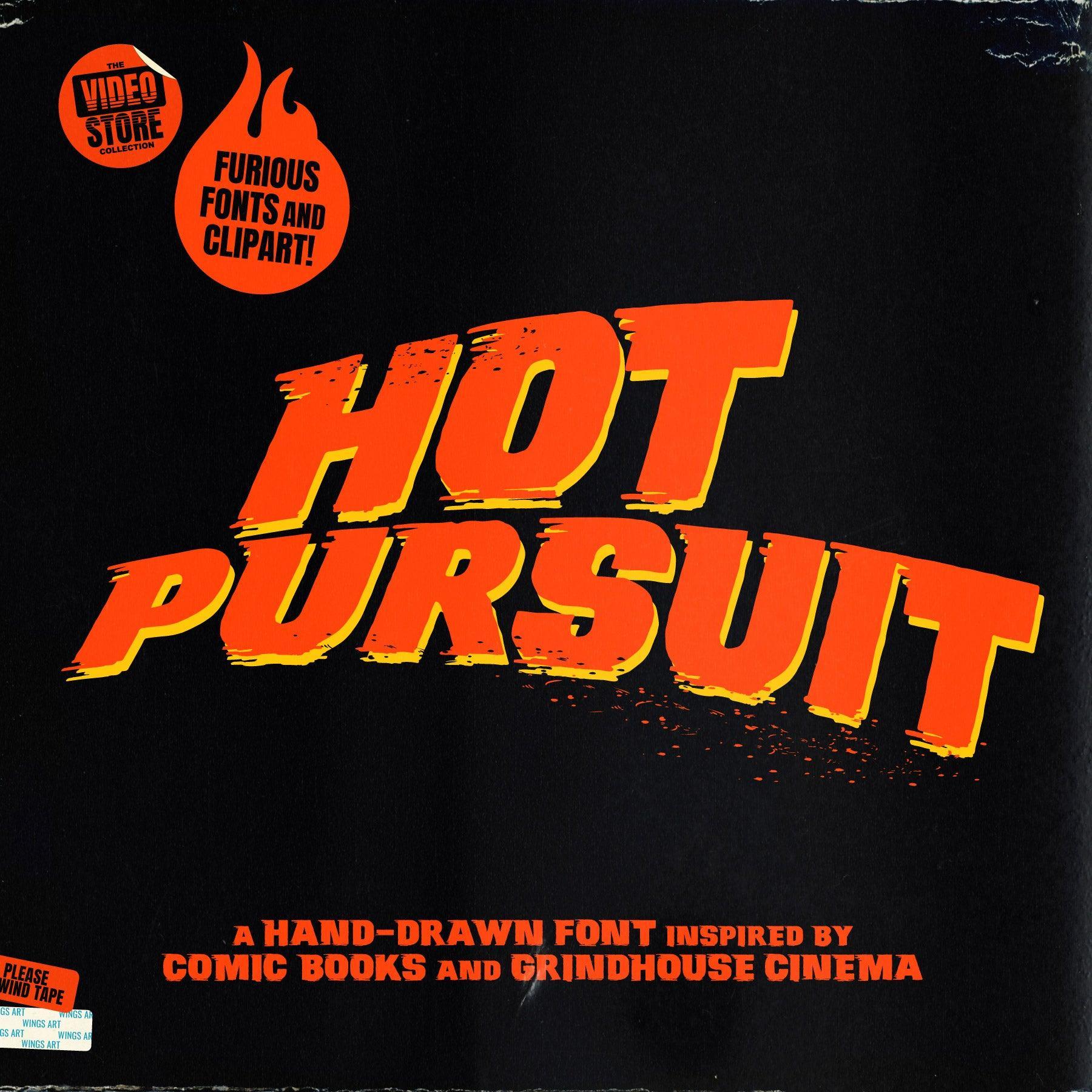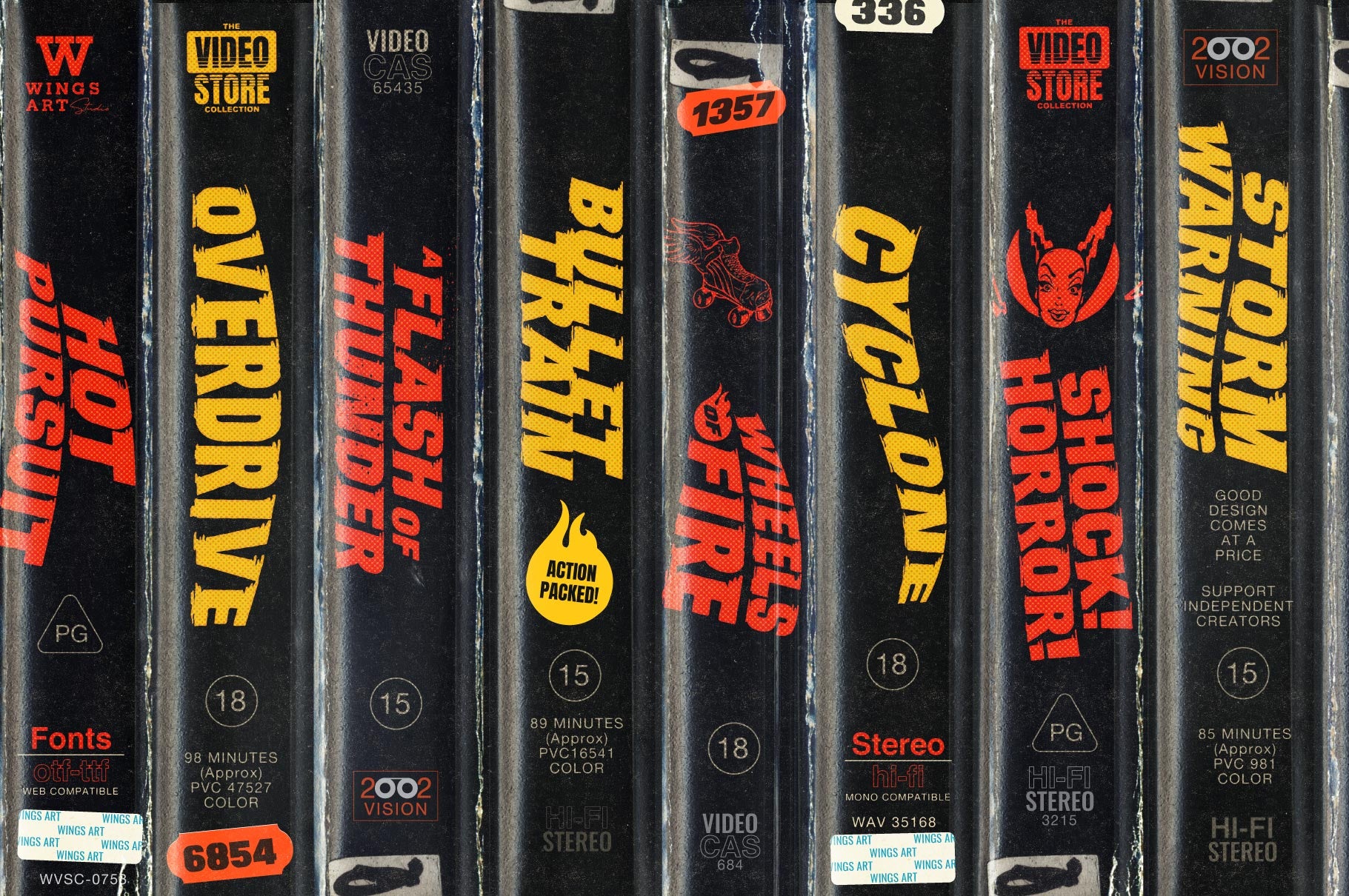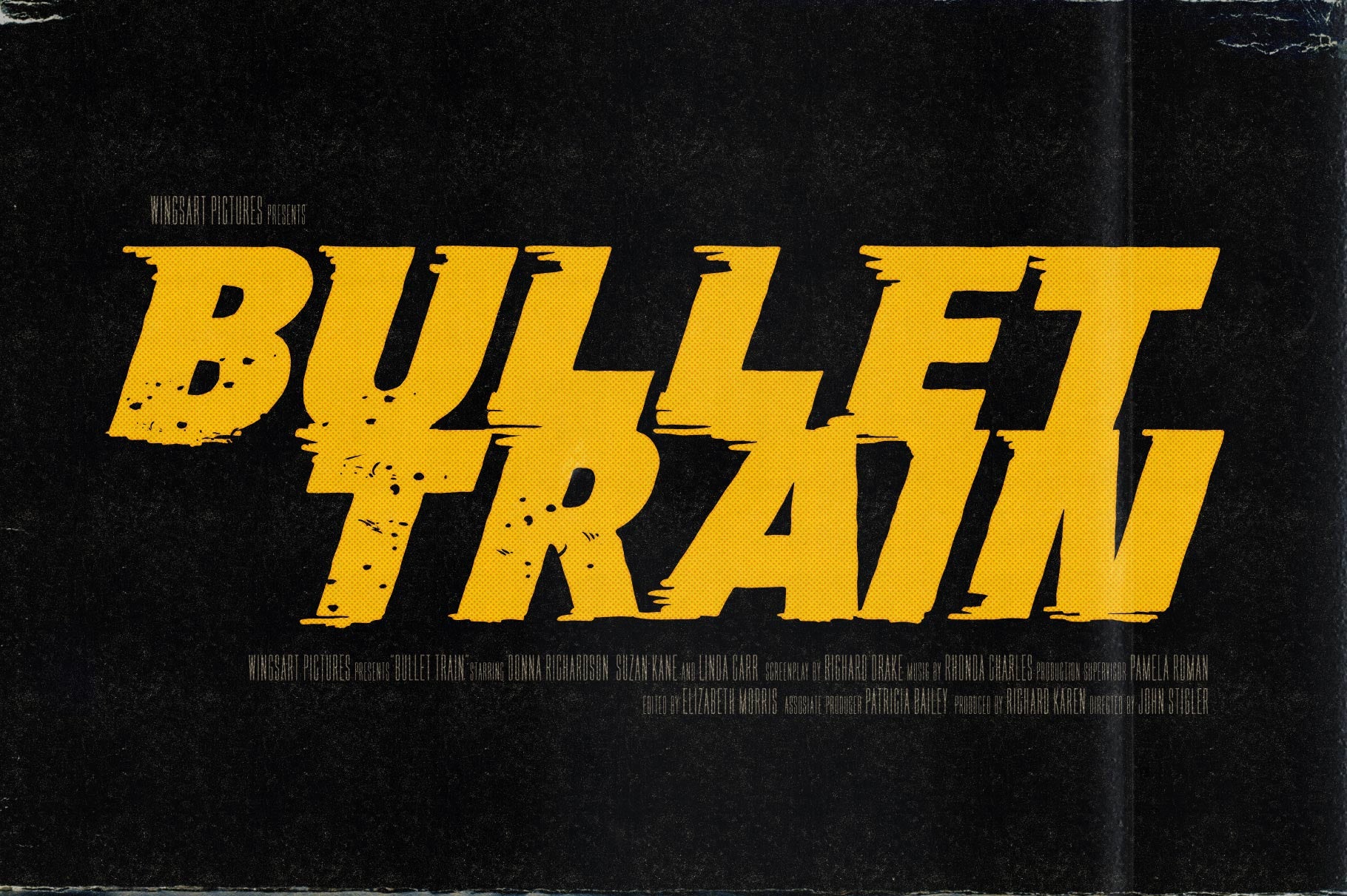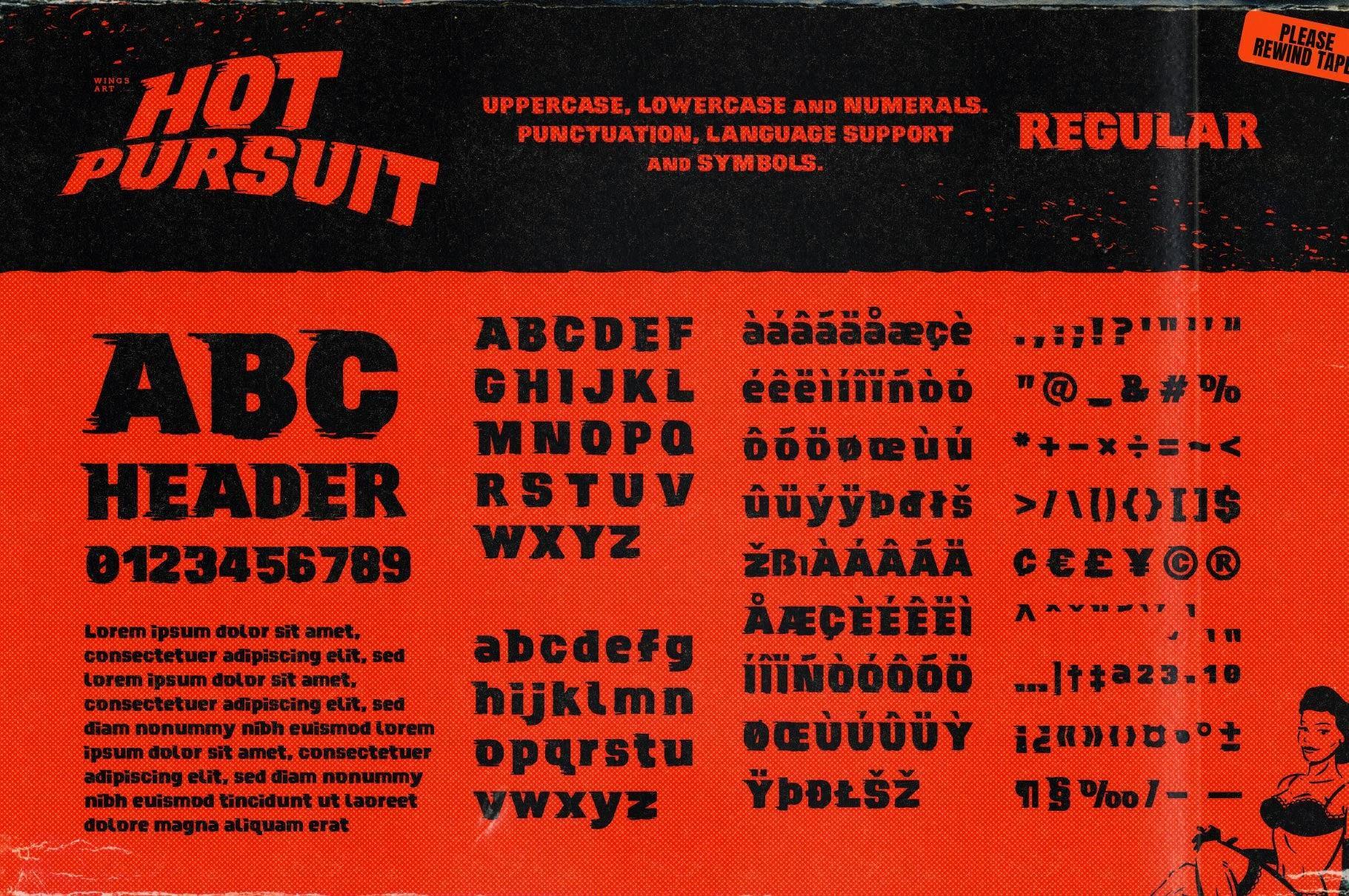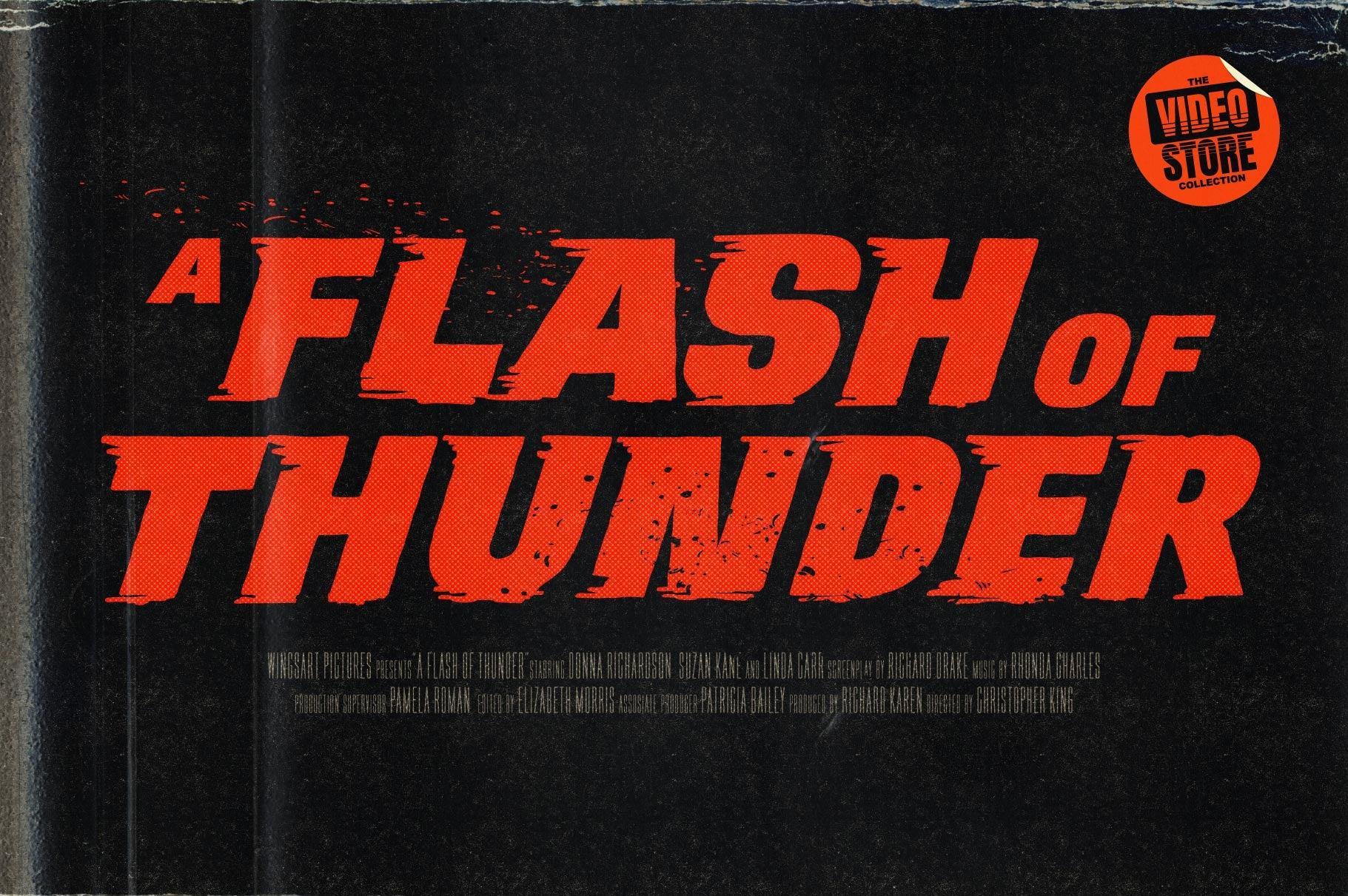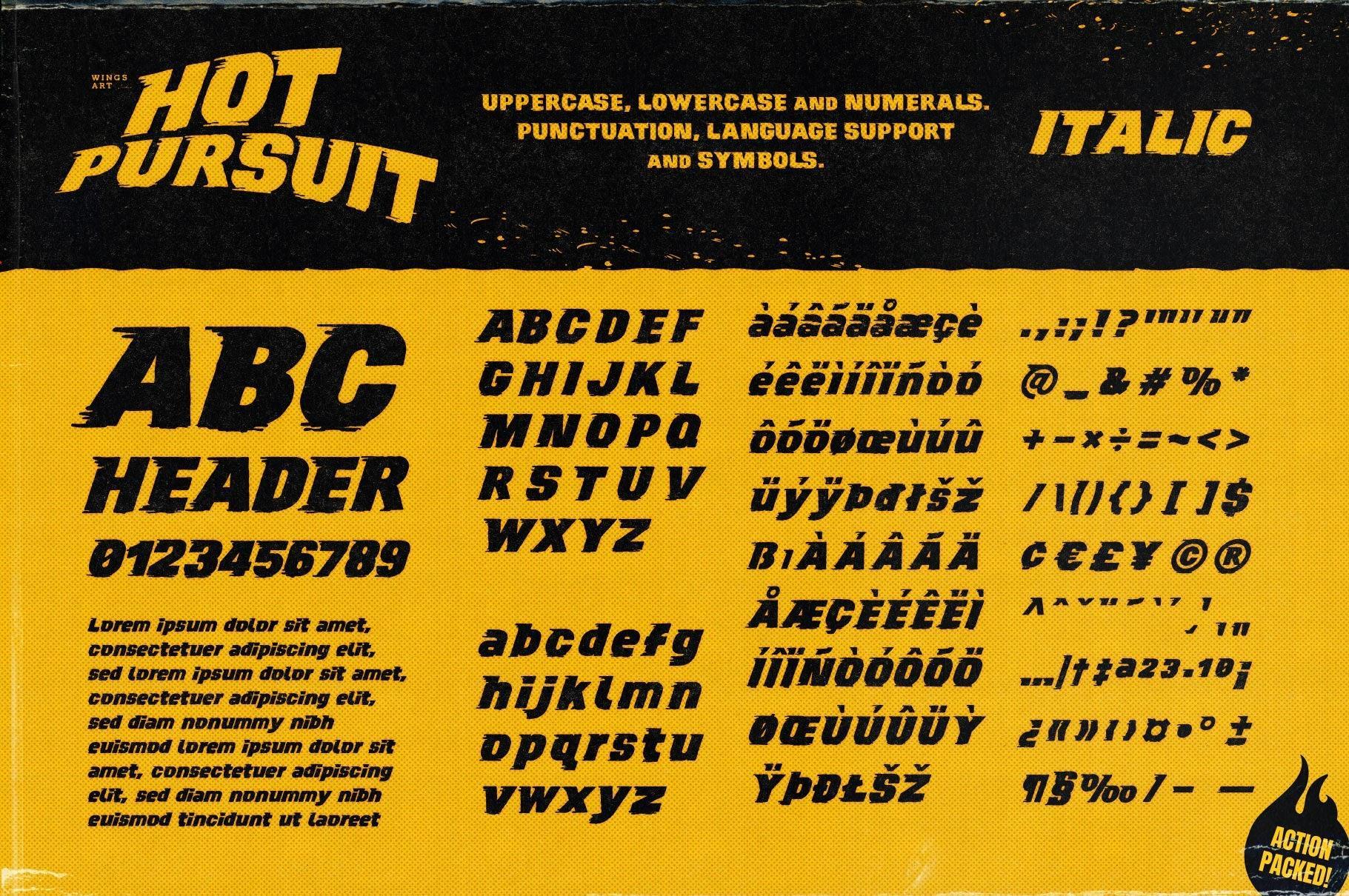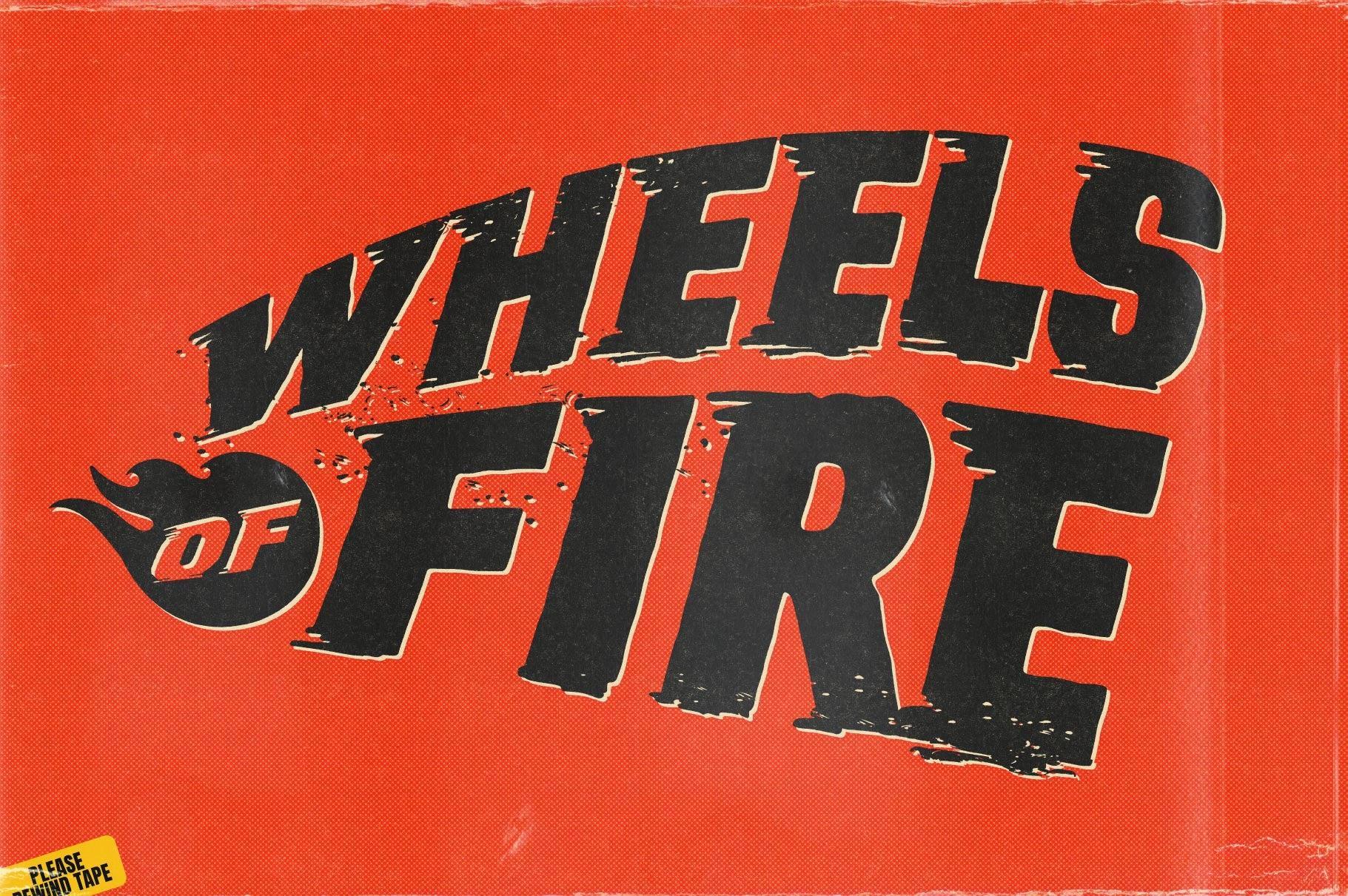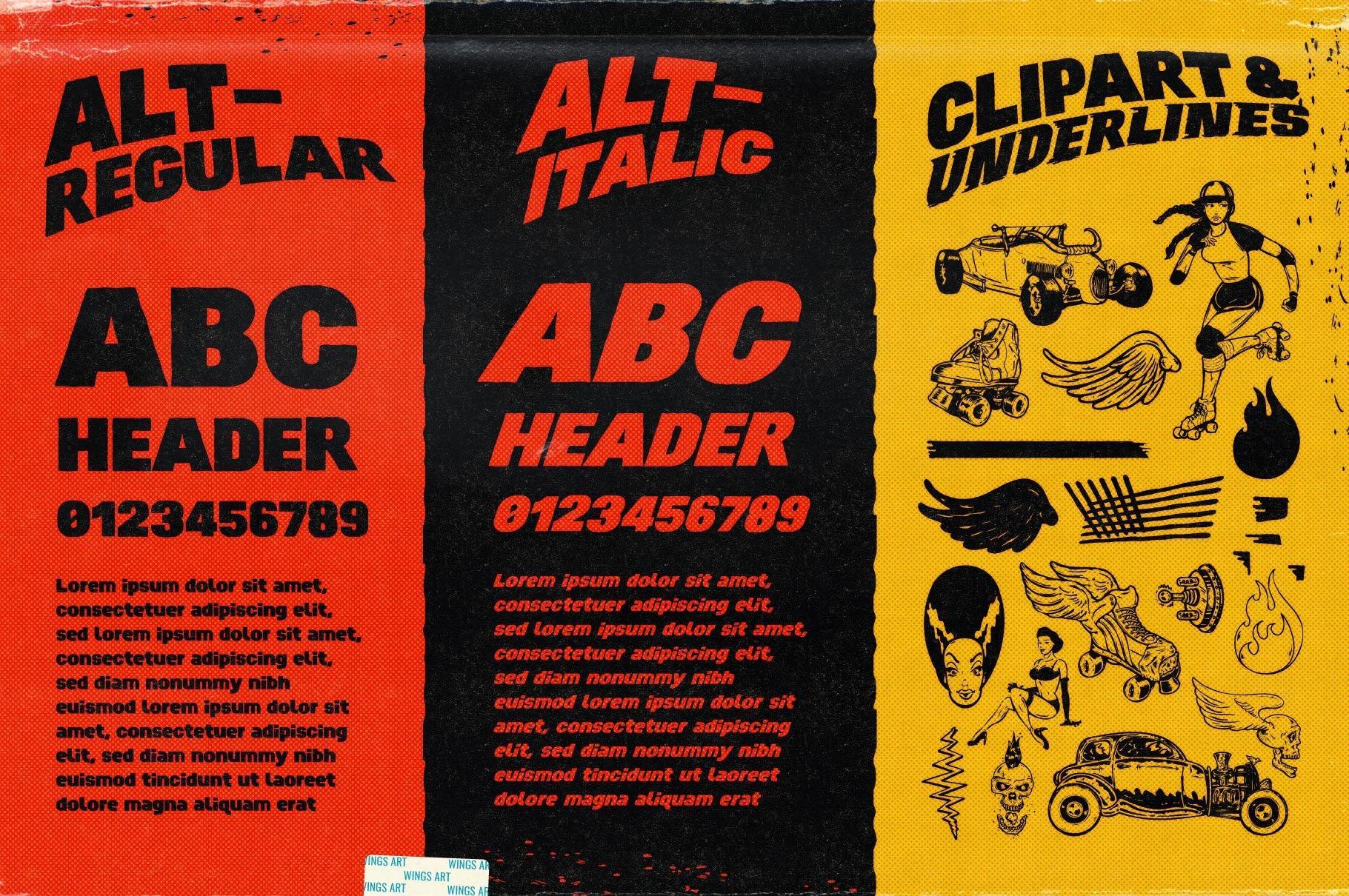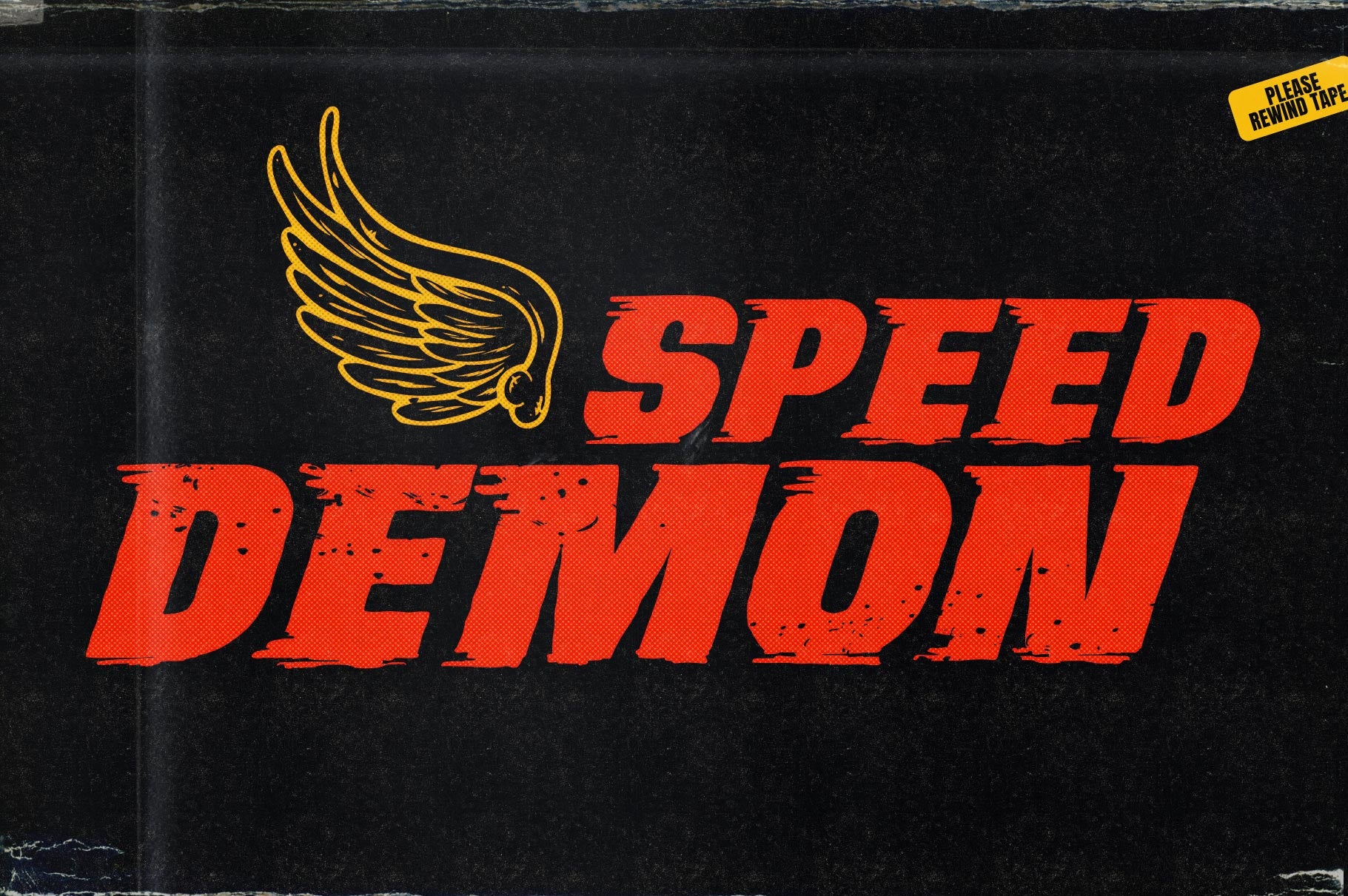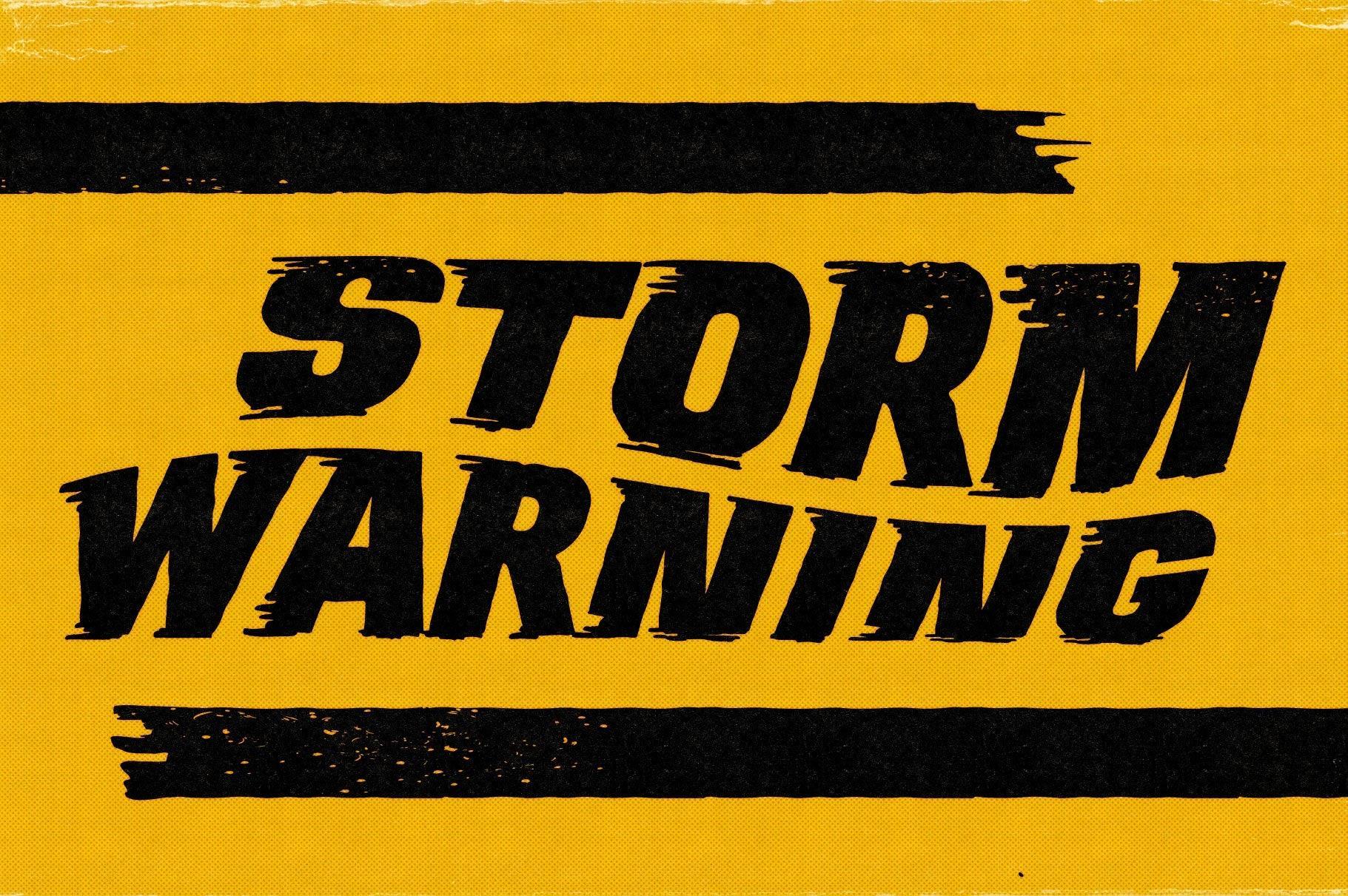
Hot Pursuit: A Hand-Drawn Grindhouse Roller Derby Font
Hot Pursuit is a hand-drawn font inspired by comic books, roller derby, and grindhouse cinema, featuring a grungy design available in regular and italic styles. It includes unique uppercase and lowercase characters, numerals, punctuation, and additional clipart and underlines, provided in OTF, TTF, and WOFF formats.
Ideal for grungy, retro-inspired graphic design projects. Perfect for dynamic movie posters, t-shirts, and stickers, ensuring bold and eye-catching typography that captures attention and evokes a sense of nostalgia.